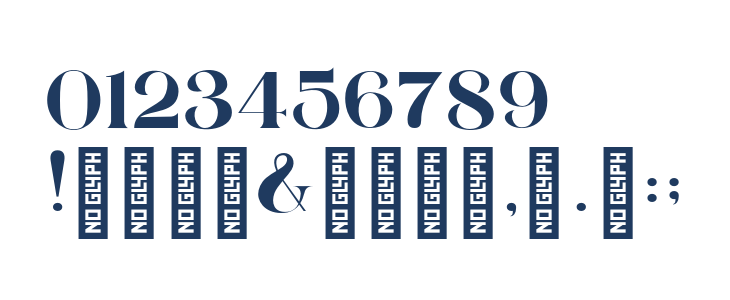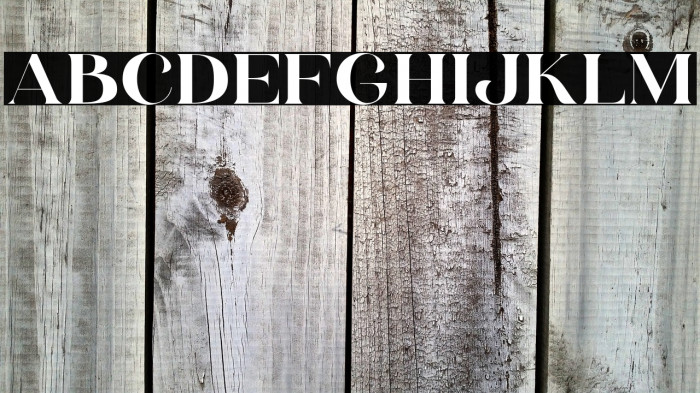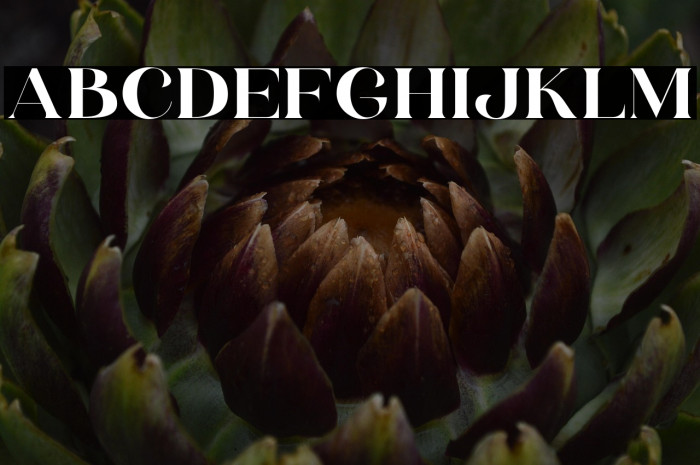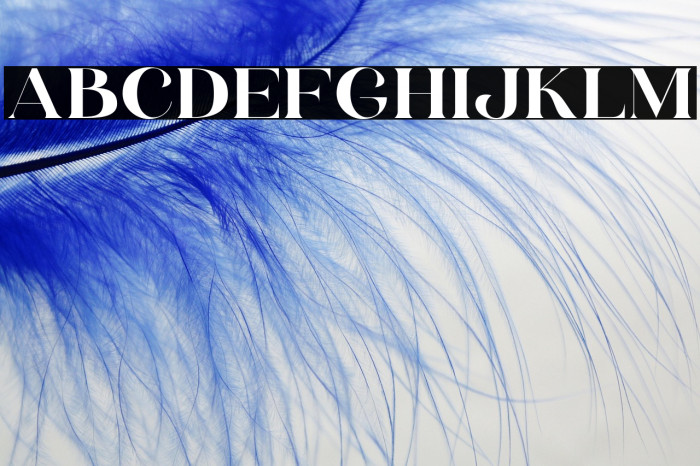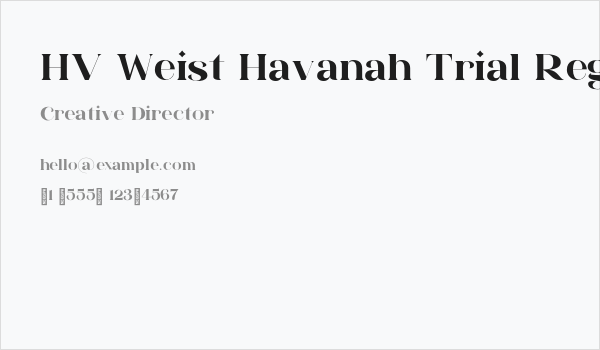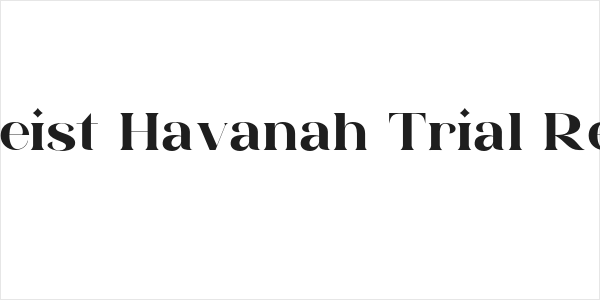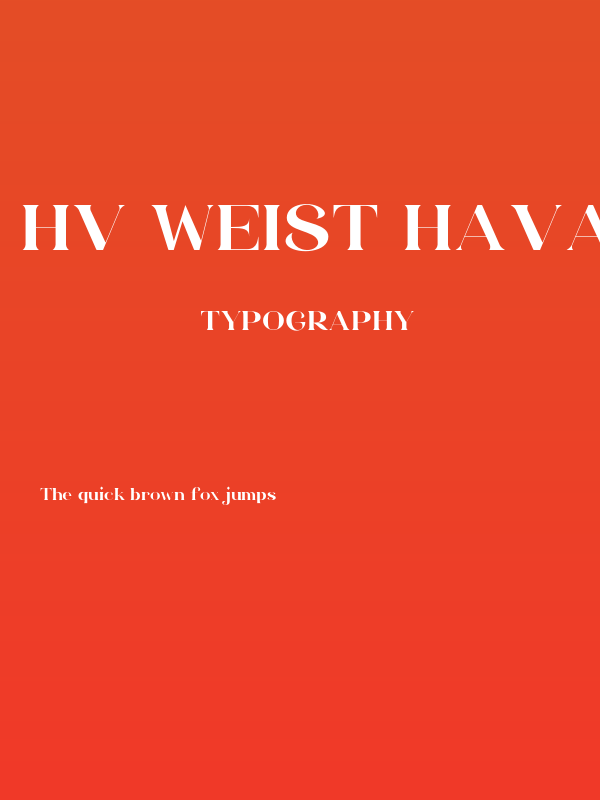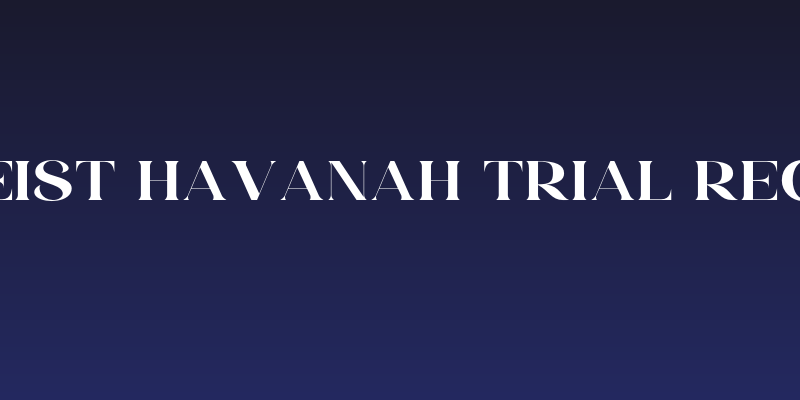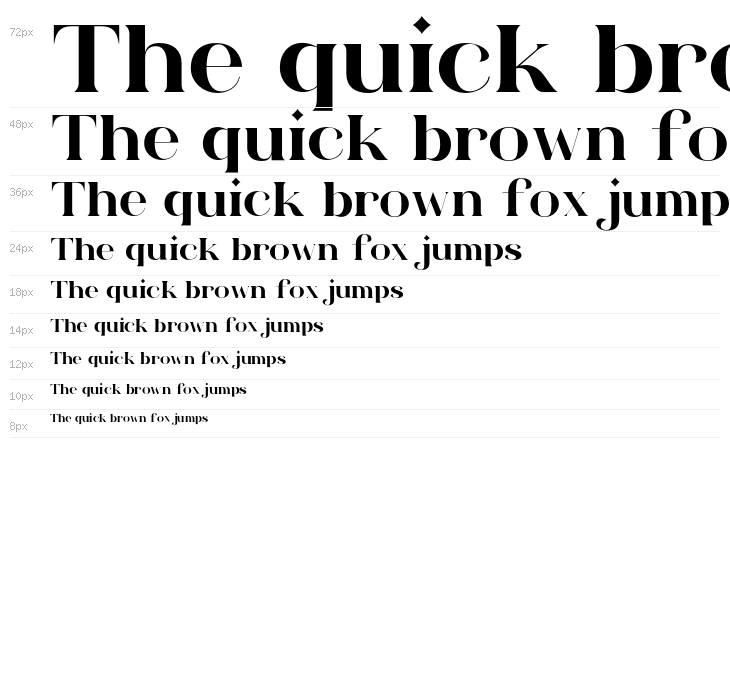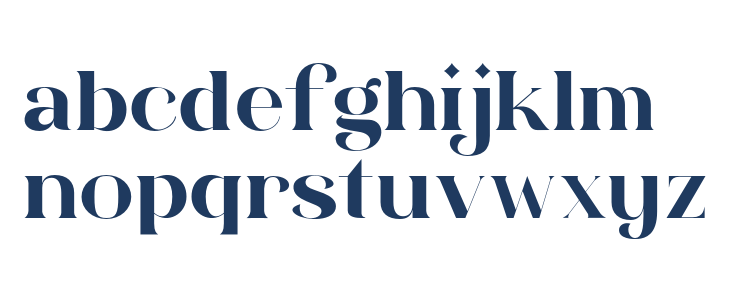
HV Weist Havanah Trial Regular Font
HV Weist Havanah Trial Regular Description
This font features a sophisticated and elegant serif design, characterized by its high contrast between thick and thin strokes. The uppercase letters exhibit a classic and refined style, with sharp serifs and a balanced structure. The lowercase letters maintain a harmonious flow, enhancing readability while preserving the font's stylish appearance. The numerals are distinct and clear, making them suitable for various applications. Special characters are well-integrated, adding versatility to the font's use. Overall, this font exudes a sense of luxury and timelessness, making it ideal for high-end branding and editorial design.